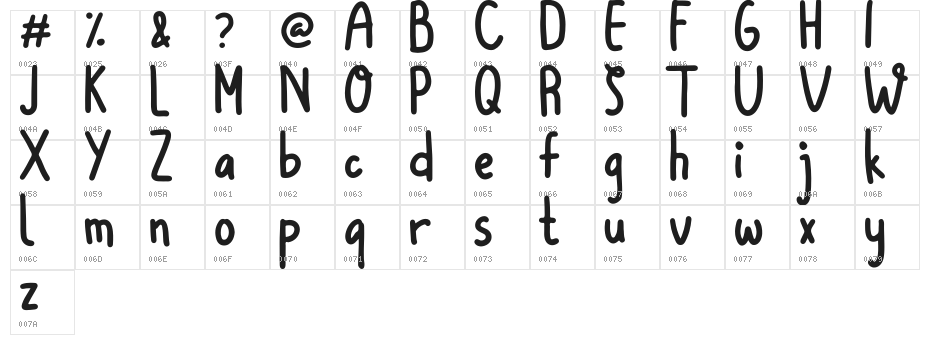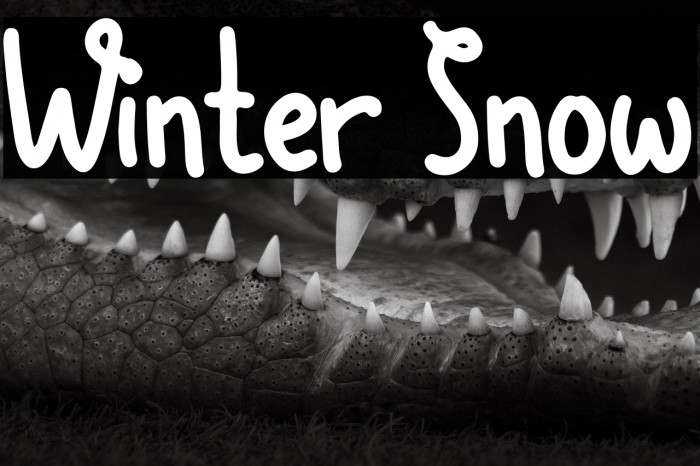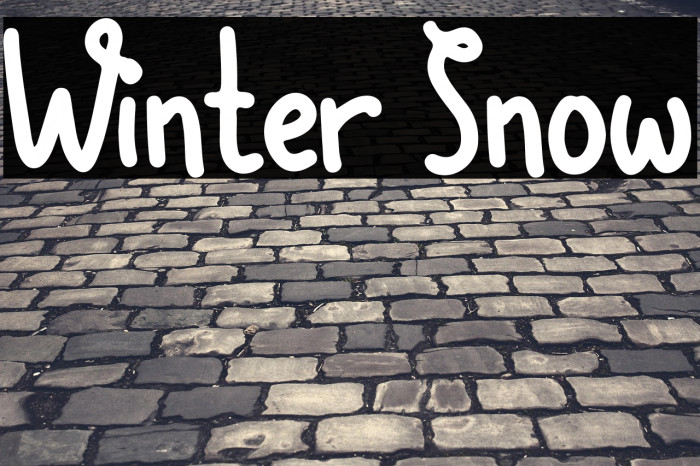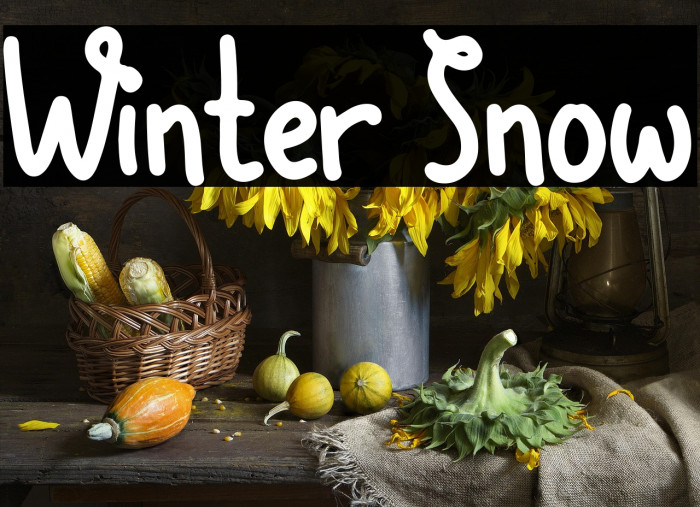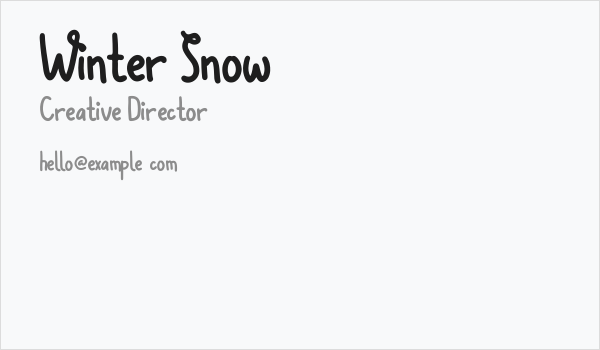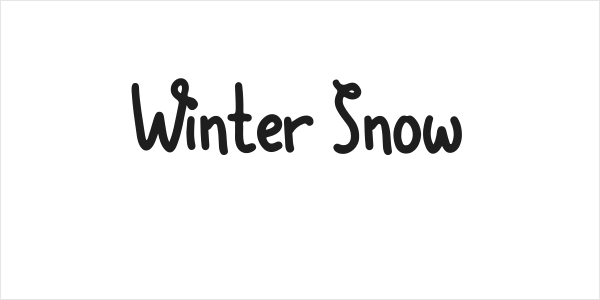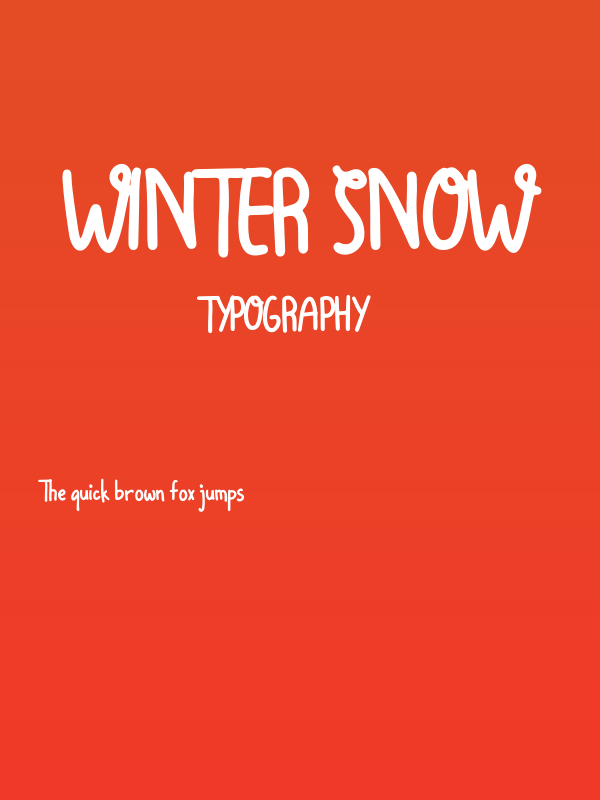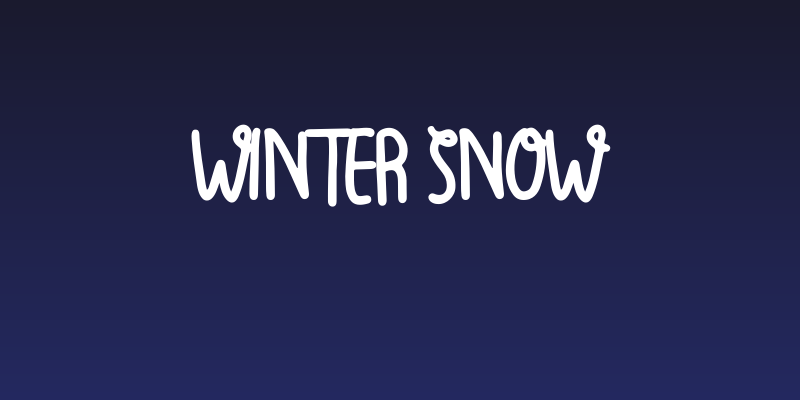
Winter Snow Font
Winter Snow Description
This font features a playful and bold handwritten style with a casual and friendly appearance. The characters are rounded and slightly irregular, giving it a whimsical and informal look. The uppercase and lowercase letters maintain a consistent style, with a slight variation in height and width that adds to its charm. The numbers and special characters are designed to match the overall aesthetic, ensuring a cohesive look across all text elements. This font is ideal for projects that require a personal touch or a fun, approachable vibe.
| Proposed Projects | Ideal for greeting cards, children's books, playful branding, and social media graphics. |